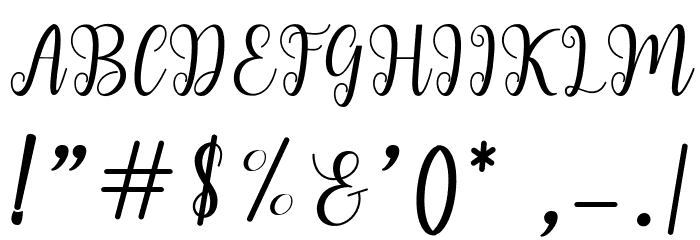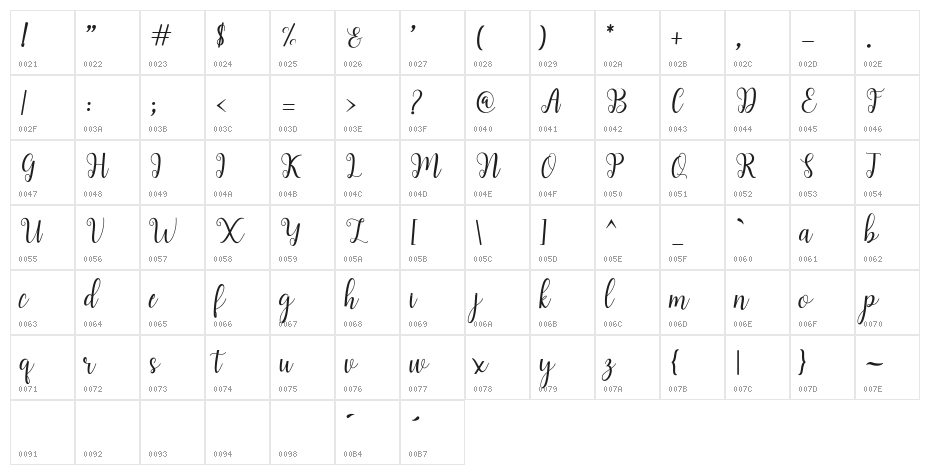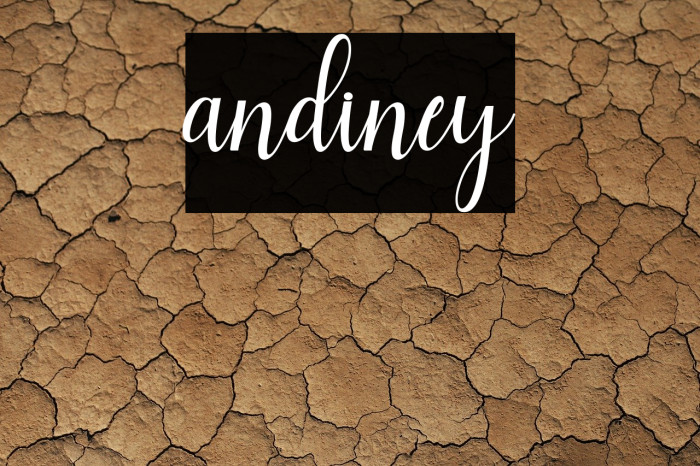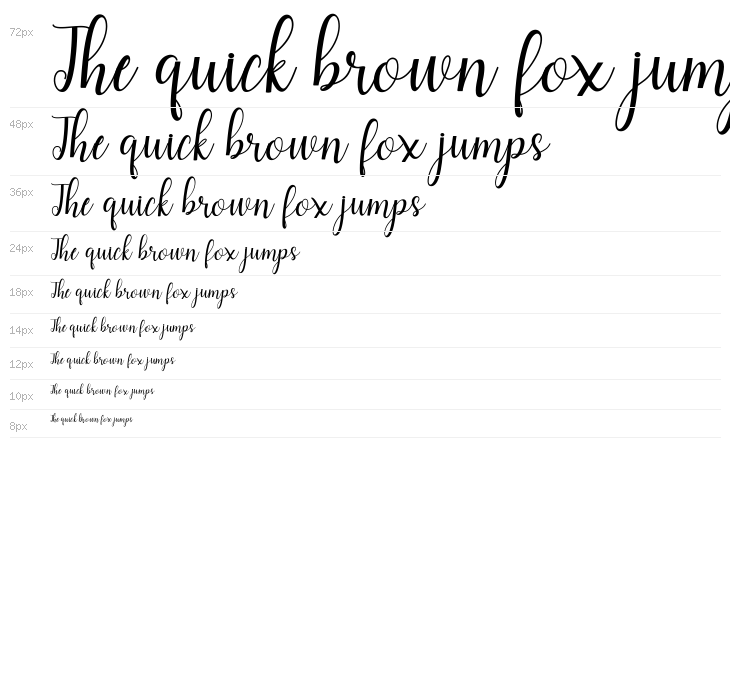
andiney Font
andiney Description
This elegant script font features flowing, interconnected letters with a graceful, handwritten style. The uppercase letters are ornate and decorative, with loops and swirls that add a touch of sophistication. The lowercase letters maintain a consistent style, offering a smooth transition between characters. The numbers and special characters are designed to match the overall aesthetic, ensuring a cohesive look. This font is perfect for projects that require a personal, artistic touch, such as invitations, greeting cards, or branding materials.
| Proposed Projects | Ideal for wedding invitations, elegant branding, greeting cards, and artistic projects. |